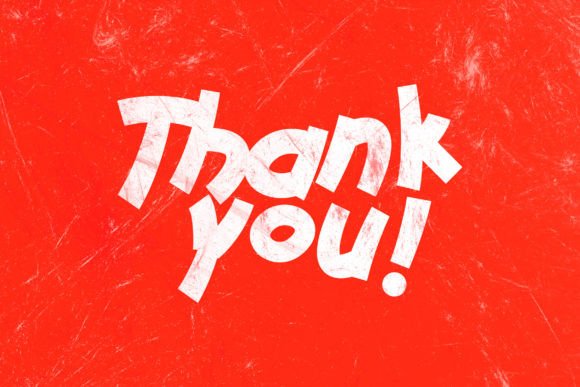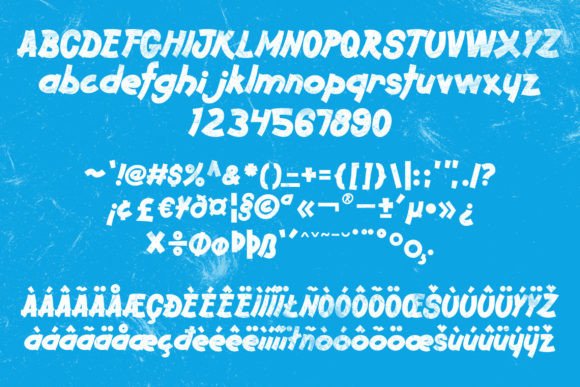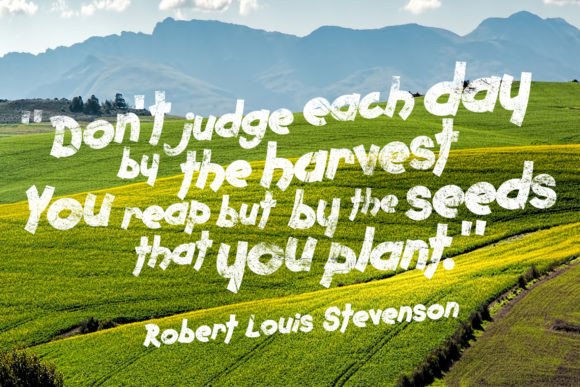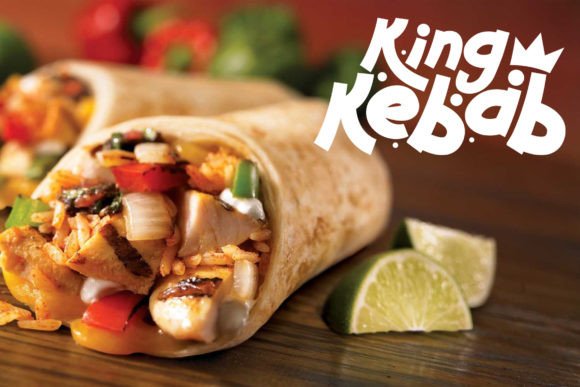
Introducing Deliciozo Font: The Perfect Addition to Your Food Business
Are you a restaurant owner, food blogger, or beverage entrepreneur looking for a unique and playful font to elevate your brand? Look no further than Deliciozo Font, our newest and most exciting addition to the world of typography. This fun and vibrant font is specifically designed to add a touch of whimsy and personality to your logo, marketing materials, and more.
What is Deliciozo Font?
Deliciozo Font is a carefully crafted typeface that embodies the spirit of delicious food and drinks. Its playful and fun theme makes it an ideal choice for businesses in the food and beverage industry, including restaurants, cafes, food trucks, and specialty food stores. With its bold and eye-catching design, Deliciozo Font is sure to make your brand stand out from the competition.
Perfect for Food and Beverage Businesses
Deliciozo Font is specifically designed to meet the needs of food and beverage businesses. Whether you’re a seasoned restaurateur or a crafty food blogger, this font is perfect for creating a logo, sticker, jersey, invitation card, brochure, or any other marketing material that requires a fun and playful touch. With Deliciozo Font, you can add a dash of personality to your brand and make it more relatable to your target audience.
Use Cases for Deliciozo Font
Deliciozo Font is incredibly versatile and can be used in a variety of contexts. Here are some ideas to get you started:
- Logo Design: Create a memorable and eye-catching logo for your restaurant, food truck, or specialty food store.
- Stickers and Labels: Add a fun and playful touch to your product labels, stickers, or packaging.
- Jerseys and Merchandise: Design custom jerseys, t-shirts, or other merchandise for your staff or promotional events.
- Invitation Cards: Create unique and personalized invitation cards for special events, such as restaurant openings or food festivals.
- Brochures and Menus: Design visually appealing brochures and menus that showcase your menu items and promotions.
Why Choose Deliciozo Font?
So why choose Deliciozo Font over other fonts on the market? Here are just a few reasons:
- Unique and Playful Design: Deliciozo Font features a one-of-a-kind design that’s sure to grab attention and add personality to your brand.
- Highly Versatile: This font can be used in a variety of contexts, from logos and stickers to jerseys and brochures.
- Easy to Read: Despite its playful design, Deliciozo Font is easy to read and understand, making it perfect for use in menus, labels, and other marketing materials.
Tips for Using Deliciozo Font
To get the most out of Deliciozo Font, here are a few tips to keep in mind:
- Use it Sparingly: While Deliciozo Font is fun and playful, it’s best to use it sparingly to avoid overwhelming your audience.
- Pair it with Other Fonts: Consider pairing Deliciozo Font with other fonts to create visual interest and add depth to your marketing materials.
- Experiment with Colors: Don’t be afraid to experiment with different colors and textures to add an extra layer of personality to your brand.
In conclusion, Deliciozo Font is a unique and versatile typeface that’s perfect for food and beverage businesses looking to add a touch of personality to their brand. With its playful and fun design, this font is sure to grab attention and make your brand stand out from the competition. Whether you’re a seasoned restaurateur or a crafty food blogger, Deliciozo Font is the perfect addition to your marketing arsenal.